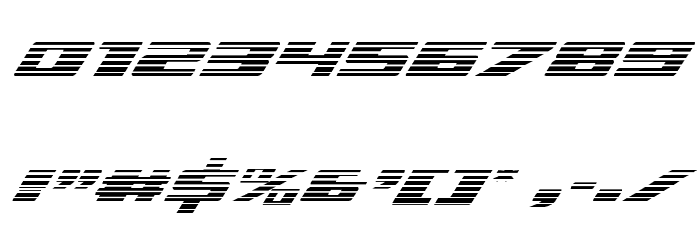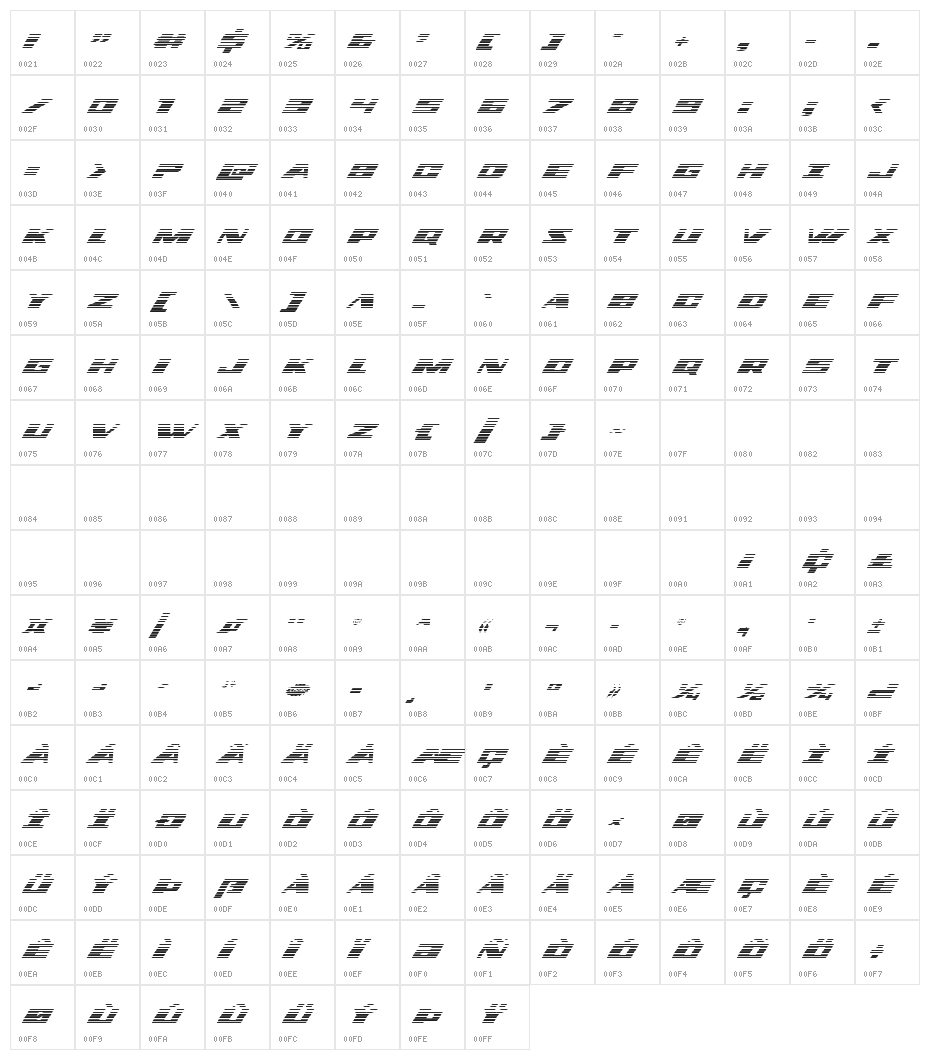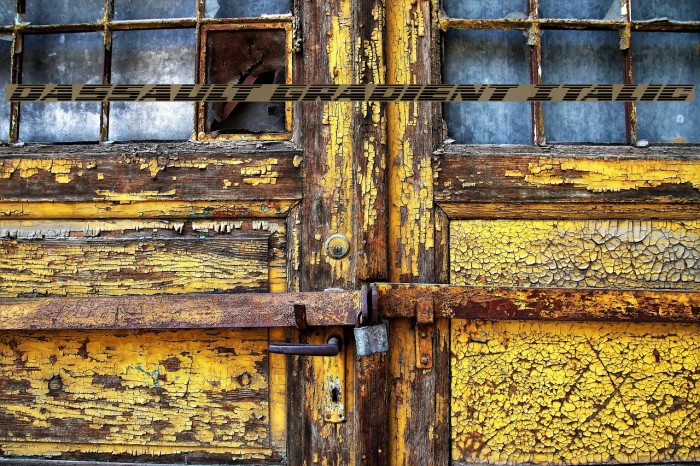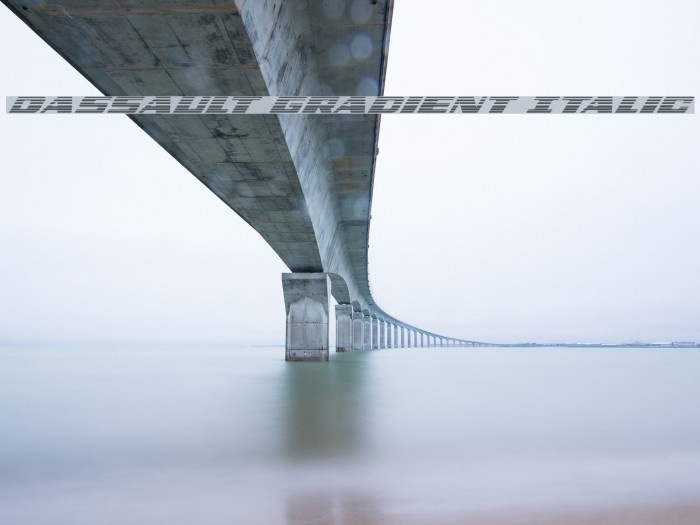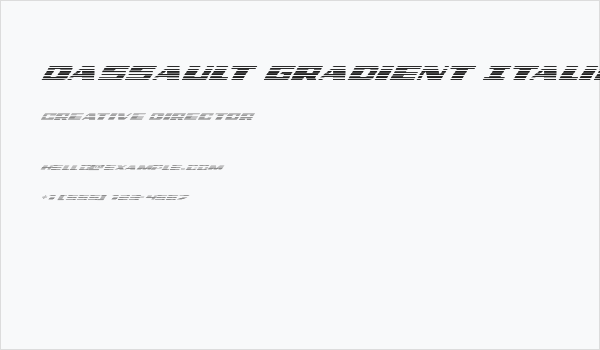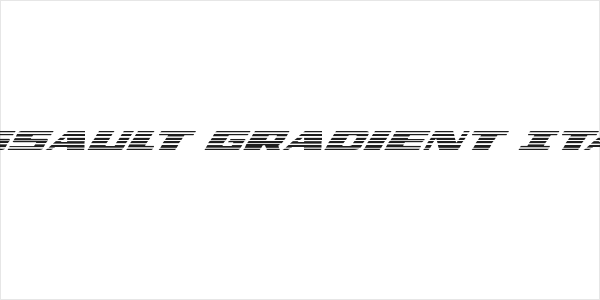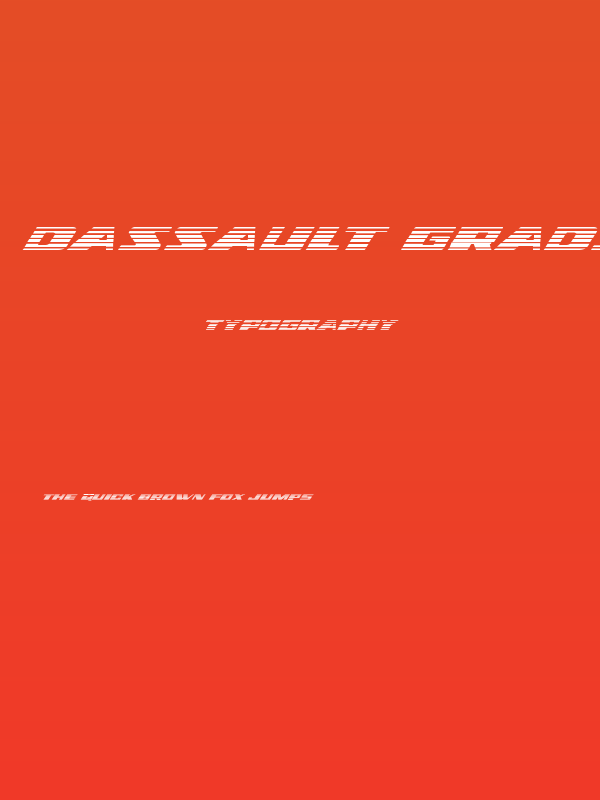
Dassault Gradient Italic Font
Dassault Gradient Italic Description
This font features a dynamic and futuristic design with a distinct italic slant. Each character is composed of horizontal lines that create a gradient effect, giving the impression of speed and movement. The uppercase and lowercase letters maintain a consistent style, with sharp angles and clean edges. Numbers and special characters follow the same design principles, ensuring uniformity across all elements. The font's unique appearance makes it suitable for projects that require a modern and edgy look.
| Use Case | Logos, Headlines |
| Proposed Projects | Ideal for use in technology branding, sports team logos, automotive advertisements, and sci-fi themed projects. |